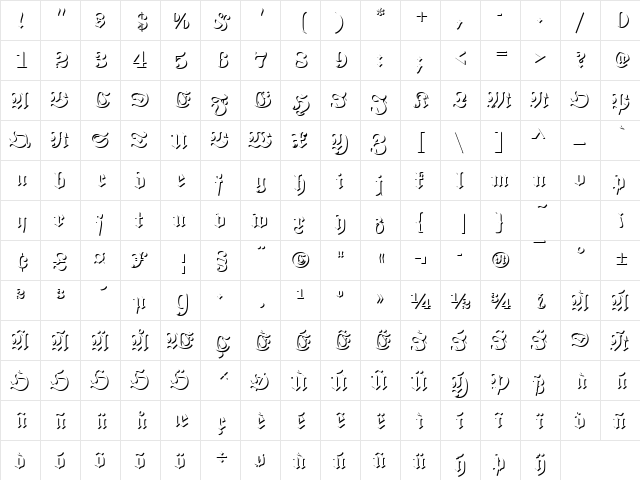
Fette Becker Fraktur OnlShad Regular
Design Context for Fette Becker Fraktur OnlShad Typeface
Fette Becker Fraktur OnlShad channels the dramatic heritage of Fraktur and Gothic scripts, bringing a sense of historical gravitas to any design.
Well-suited to band logos, craft beer branding, tattoo lettering, and heritage-themed identities.
Font Pairing: Pair with a clean neutral sans-serif for body copy to let Fette Becker Fraktur OnlShad's character lead without overwhelming the composition.
Pro Tip: Use Fette Becker Fraktur OnlShad sparingly at large sizes. Even a single word set in blackletter can define the visual register of an entire design.